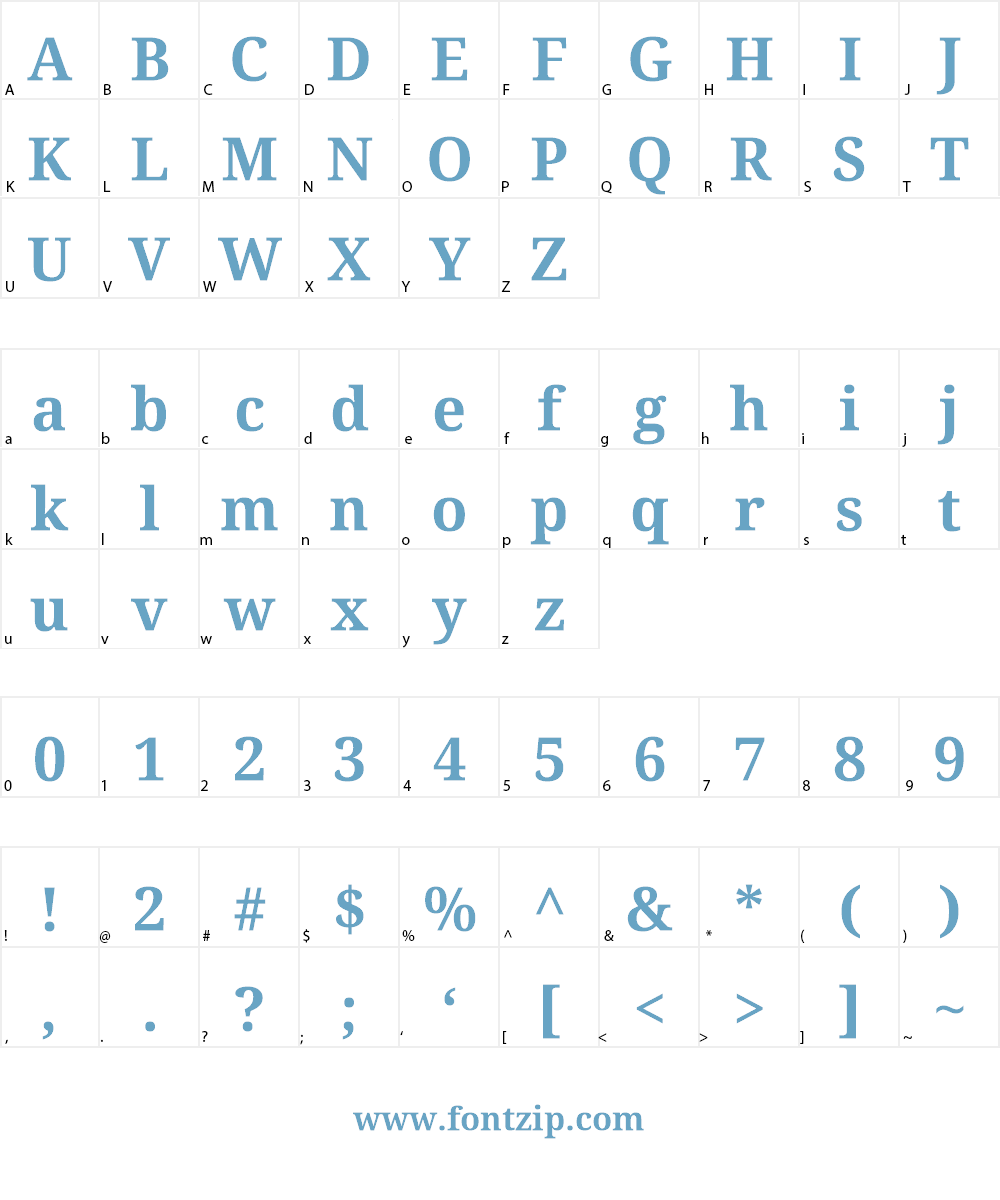
The Droid Serif font family features a contemporary appearance and was designed for comfortable reading on screen. Designed by Steve Matteson, Type Director of Ascender Corp, Droid Serif features slightly condensed letterforms to maximize the amount of text displayed on small screens. Vertical stress, sturdy serifs and open forms contribute to the readability of Droid Serif while its proportion and overall design complement its companion Droid Sans. Droid Serif family has four fonts: Regular, Italic, Bold & Bold Italic.